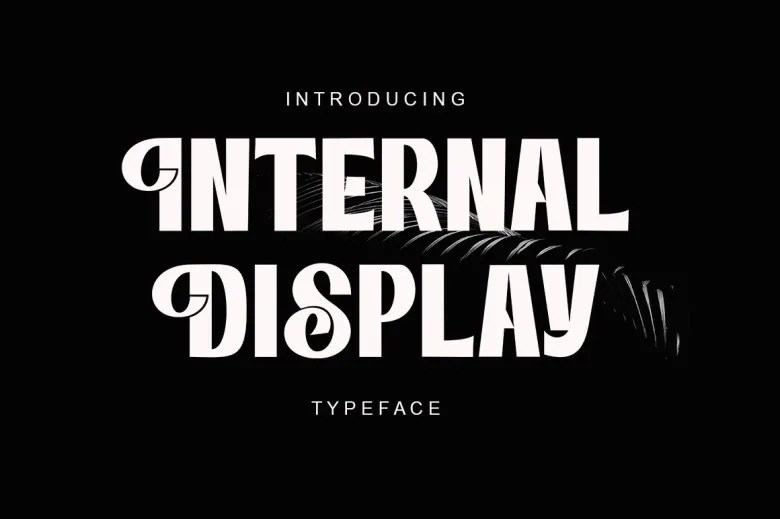
Internal Display Font
Internal Display is a classic-style font that effortlessly combines cleanliness with modern elegance. Its smooth and sensual design enhances readability while adding a touch of original femininity. This versatile typeface is ideal for a variety of formal and elegant applications.
Internal Display is well-suited for creating visually appealing menus, invitations, and labels. Its refined aesthetics make it an excellent choice for romantic novels, letterpress designs, magazines, books, wedding invitations, greeting cards, packaging labels, and more. Whether you’re crafting a sophisticated logo or designing a luxurious brand identity, Internal Display provides the perfect balance of grace and clarity.